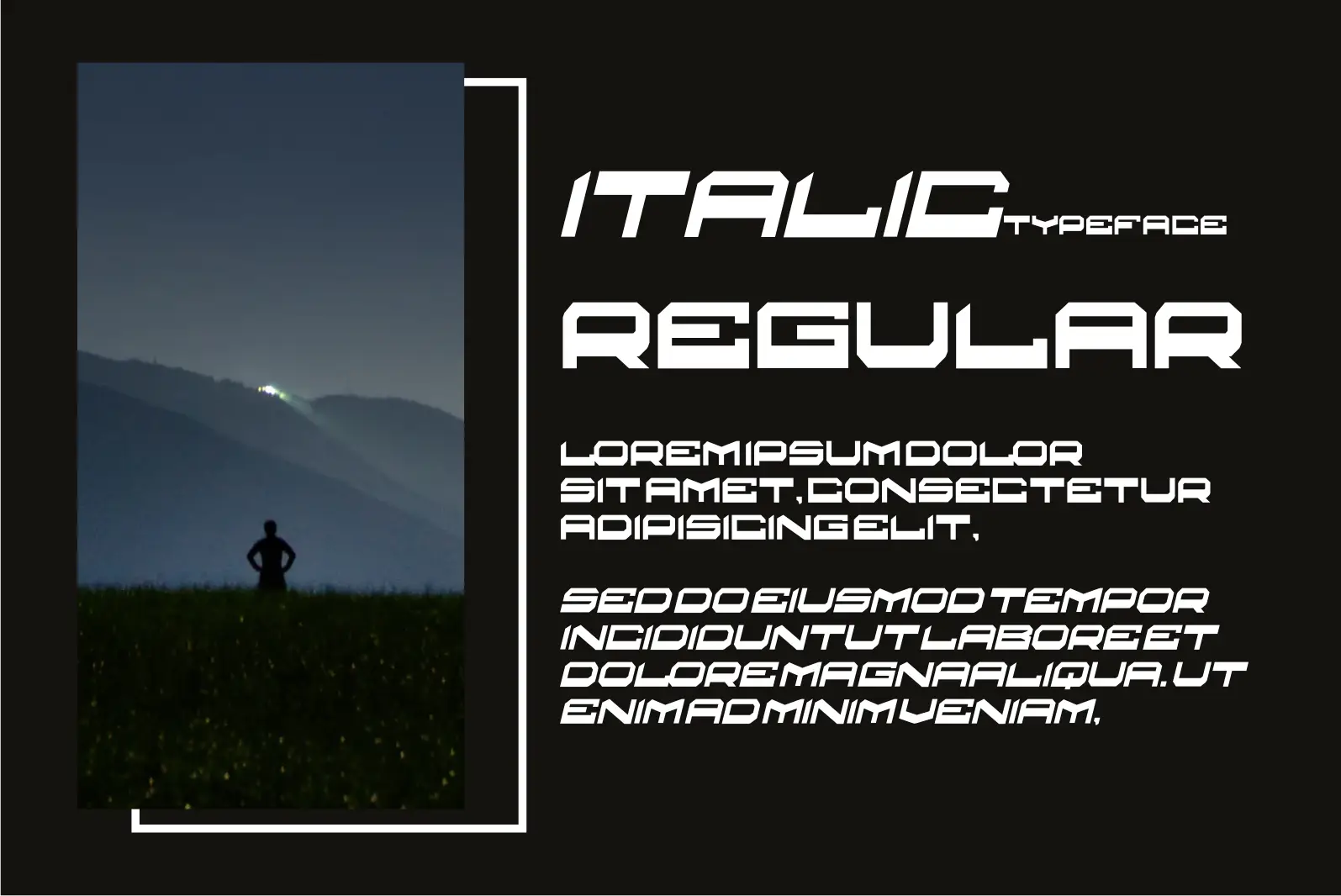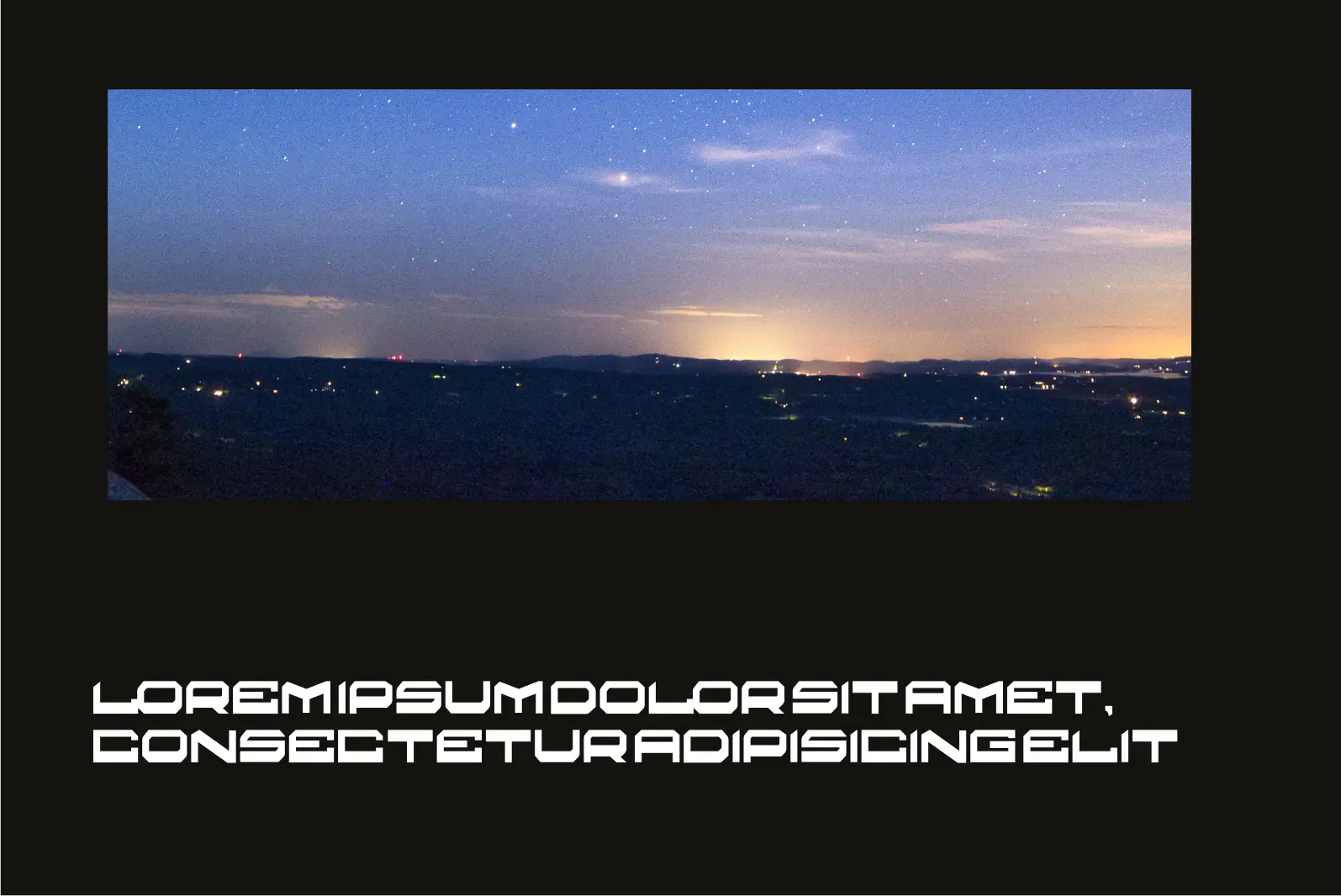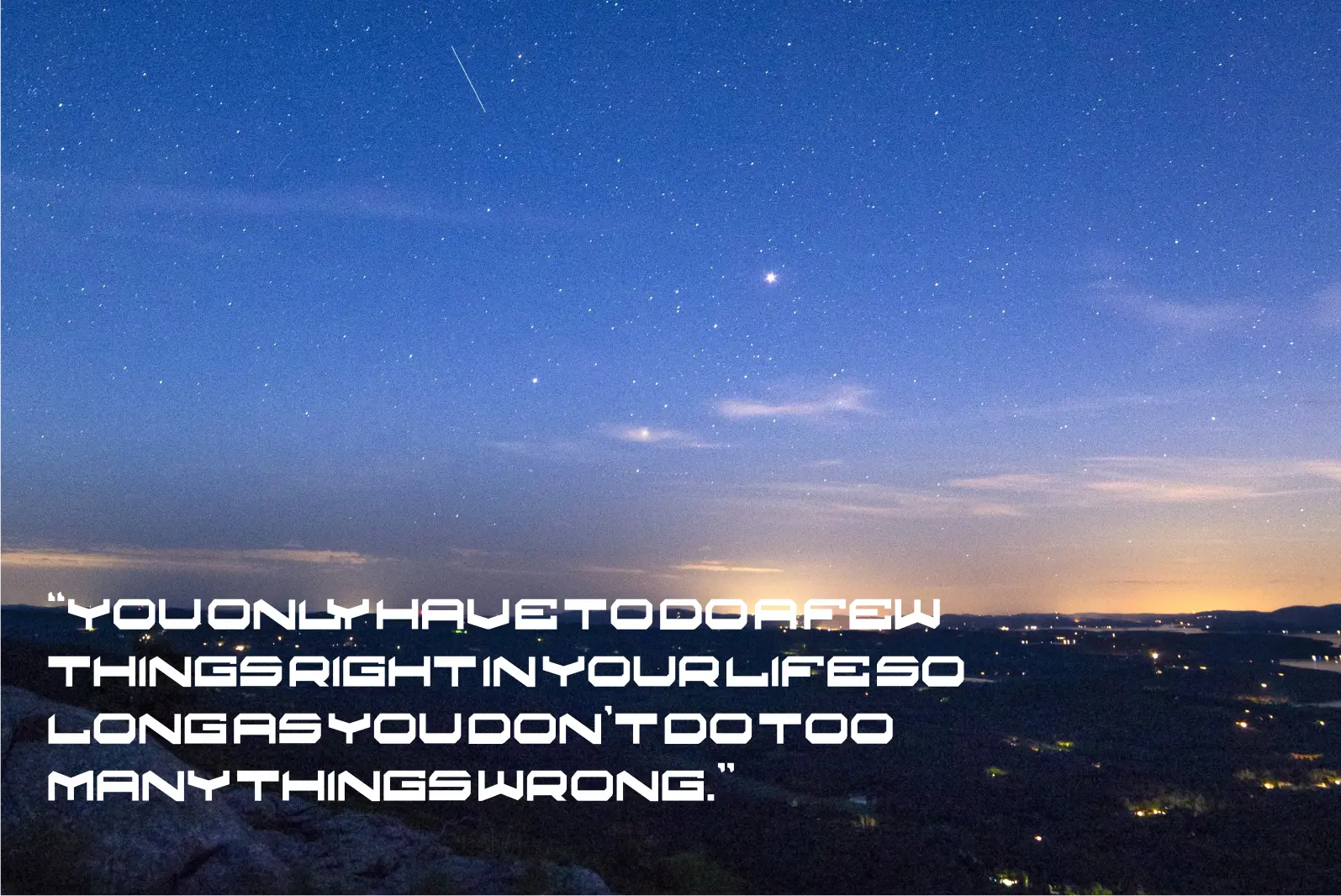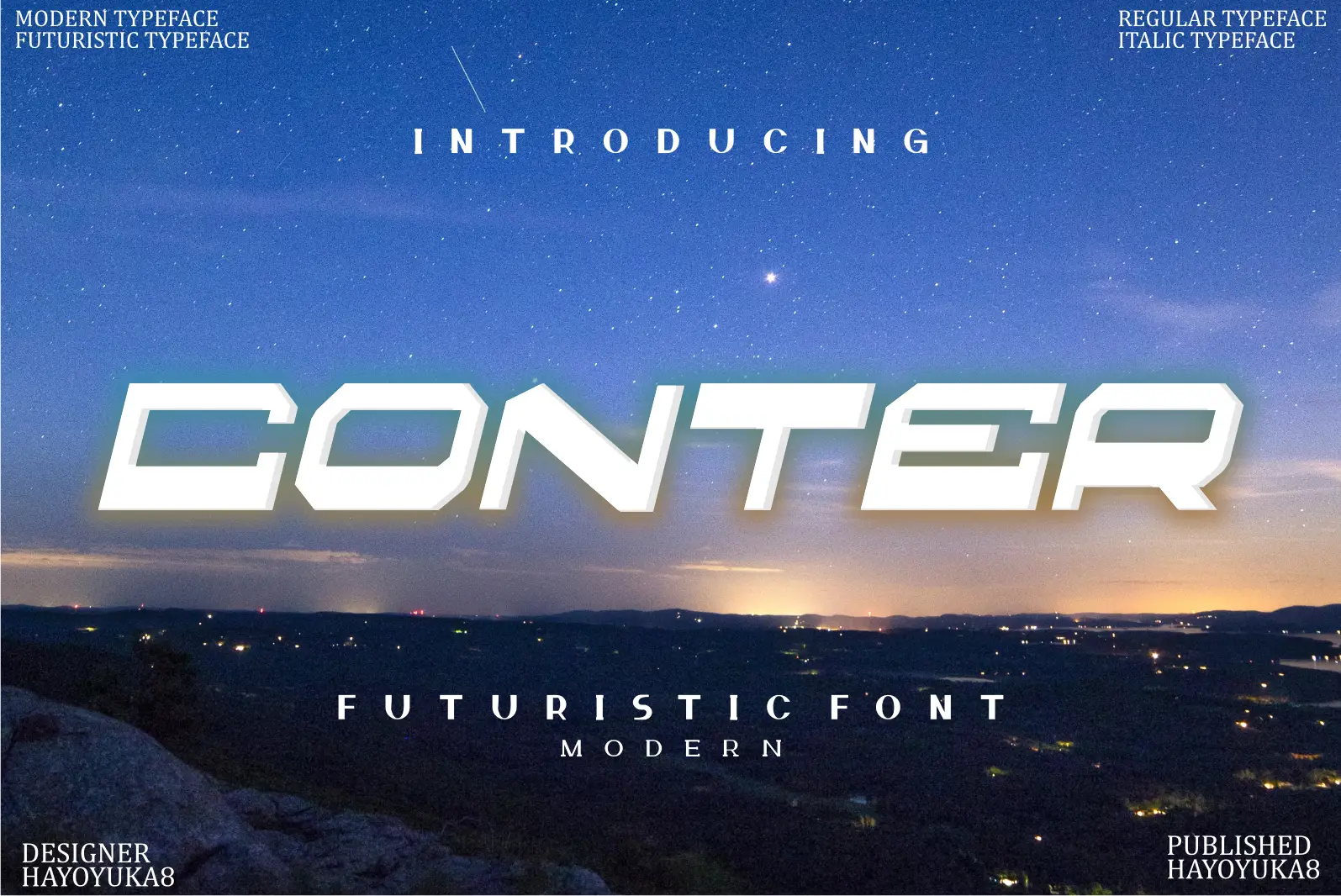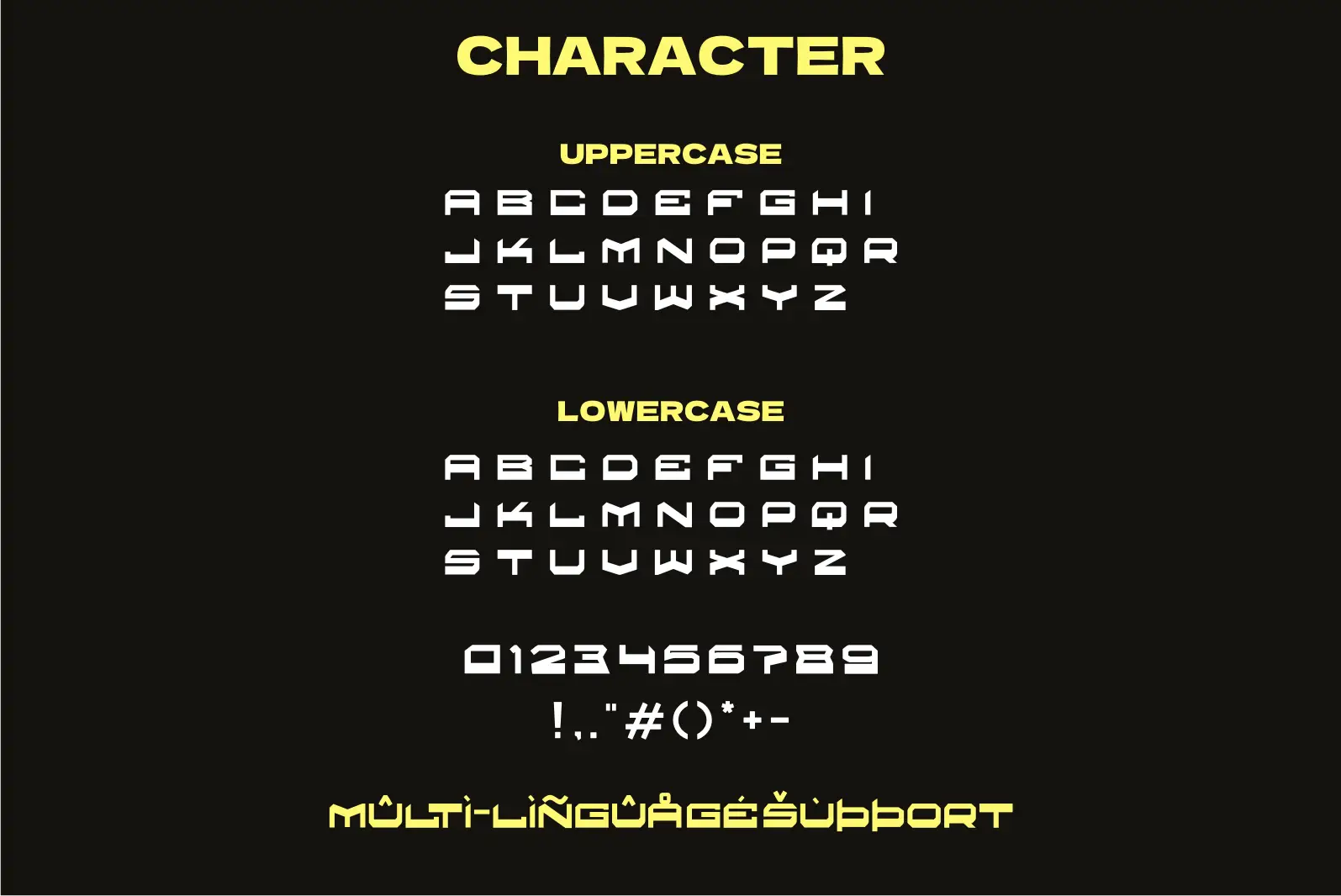
Conter Display Font
The Conter Display Font is a striking typeface designed to make a bold statement in any project. Its unique character shapes and stylish curves make it perfect for headlines, branding, and promotional materials.
• Stylish and modern design
• Multiple weights available for versatility
• Styles: Display
This font is ideal for use in branding, logos, web design, and print materials. Its eye-catching design ensures that your text stands out, making it a great choice for marketing campaigns and advertisements.